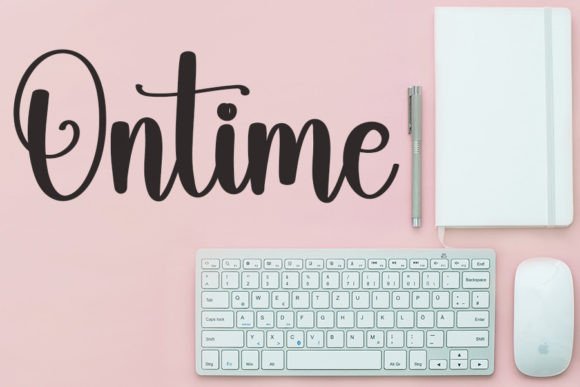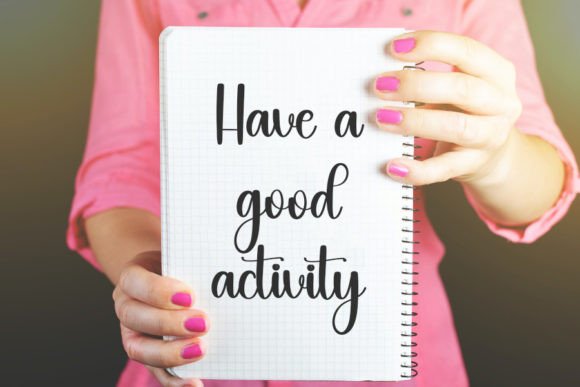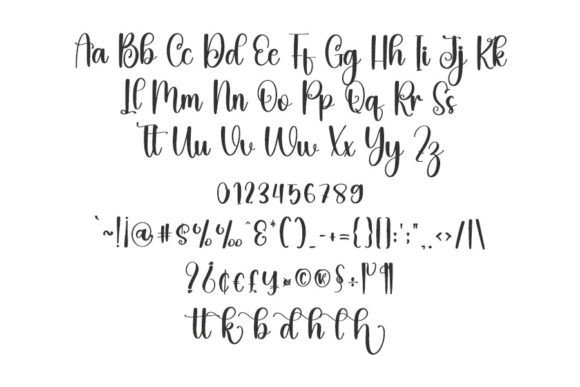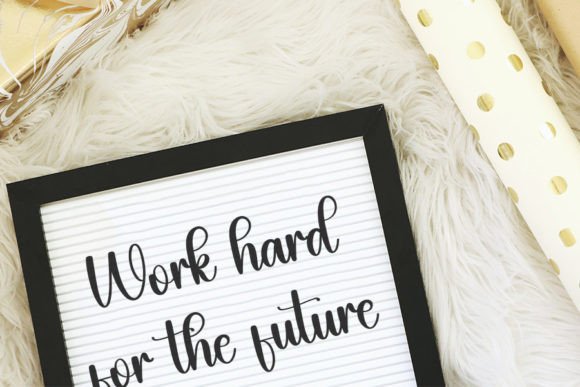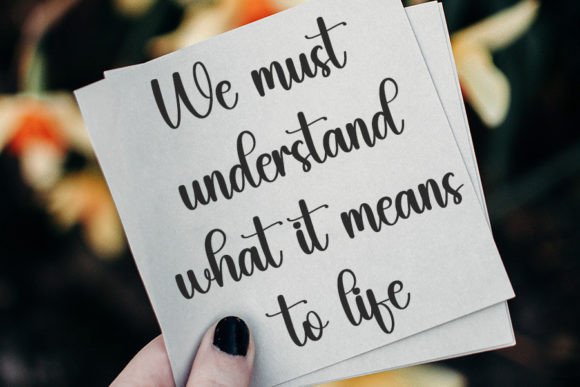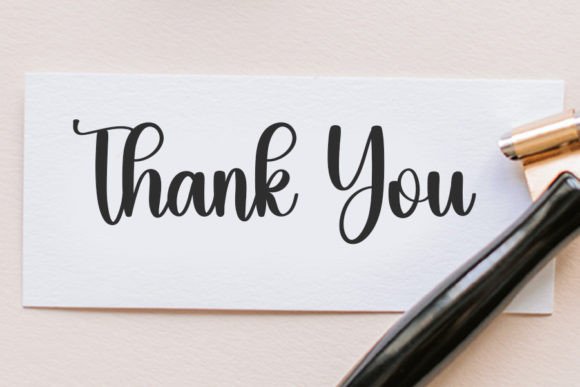
Introducing Block Font: The Ultimate Casual Script Font for Creative Projects
Are you tired of using the same old fonts for your creative projects? Look no further! Block font is here to revolutionize the way you approach typography. This casual and relaxed script font is perfect for designers and crafters who want to add a touch of elegance and sophistication to their work. In this article, we’ll dive into the world of Block font and explore its incredible versatility, uses, and benefits.
What is Block Font?
Block font is a beautifully designed script font that exudes a sense of casual elegance. Its relaxed and effortless style makes it perfect for a wide range of creative projects, from wedding invitations and stationary art to social media posts and more. With its unique and stylish lettering, Block font is sure to capture the attention of your audience and leave a lasting impression.
The Versatility of Block Font
One of the standout features of Block font is its incredible versatility. Whether you’re designing a formal wedding invitation or a fun social media post, Block font adapts seamlessly to any style or theme. Its casual and relaxed nature makes it perfect for:
- Stationary art and greeting cards
- Blog posts and articles
Benefits of Using Block Font
So, why choose Block font for your creative projects? Here are just a few benefits of using this amazing script font:
- Elegant and sophisticated: Block font adds a touch of elegance and sophistication to any design, making it perfect for formal and informal projects alike.
- Highly versatile: Block font can be used for a wide range of creative projects, from wedding invitations to social media posts.
- Easy to read: Despite its elegant and cursive nature, Block font is incredibly easy to read, making it perfect for body text and headlines.
- Unique and stylish: Block font’s unique and stylish lettering sets it apart from other script fonts, ensuring your designs stand out from the crowd.
Tips for Using Block Font
- Pair with bold fonts: Block font pairs perfectly with bold and sans-serif fonts, creating a beautiful contrast that adds visual interest to your designs.
- Experiment with colors: Block font looks stunning in a range of colors, from soft pastels to rich jewel tones. Experiment with different colors to find the perfect fit for your design.
- Use for headlines and titles: Block font is perfect for headlines and titles, adding a touch of elegance and sophistication to your designs.